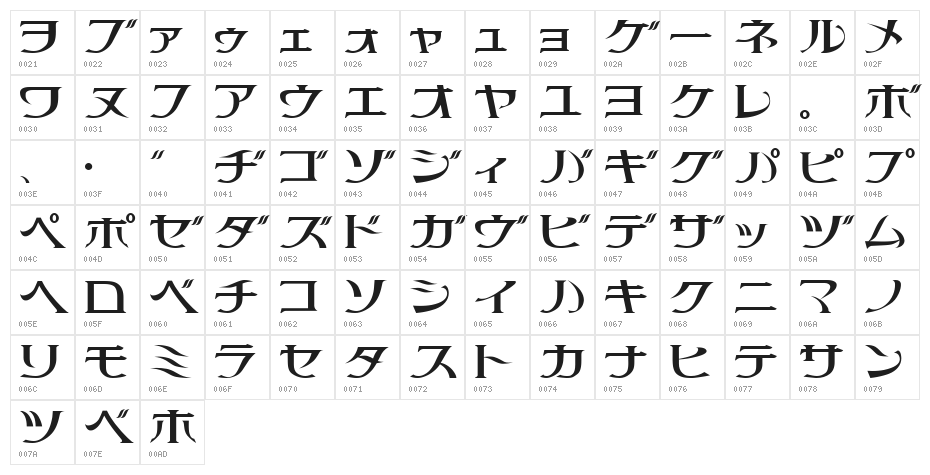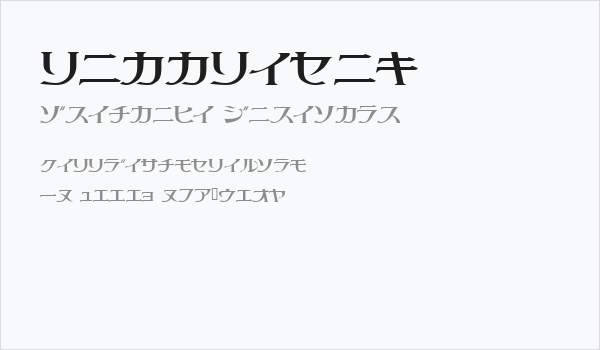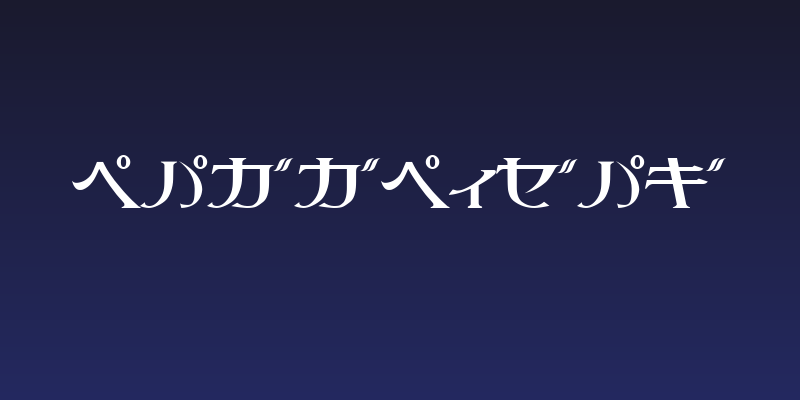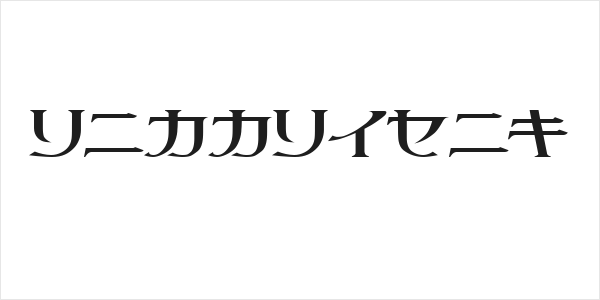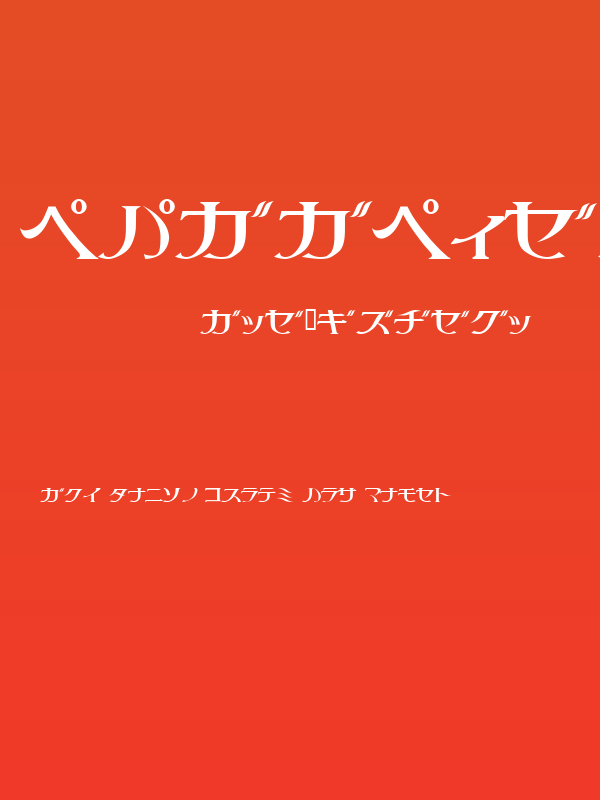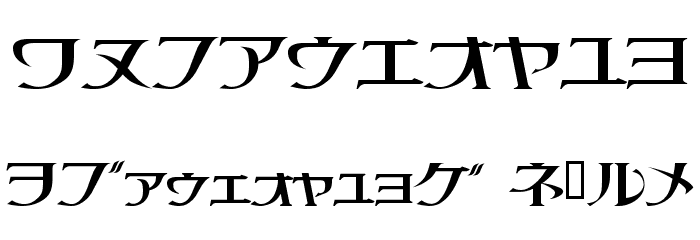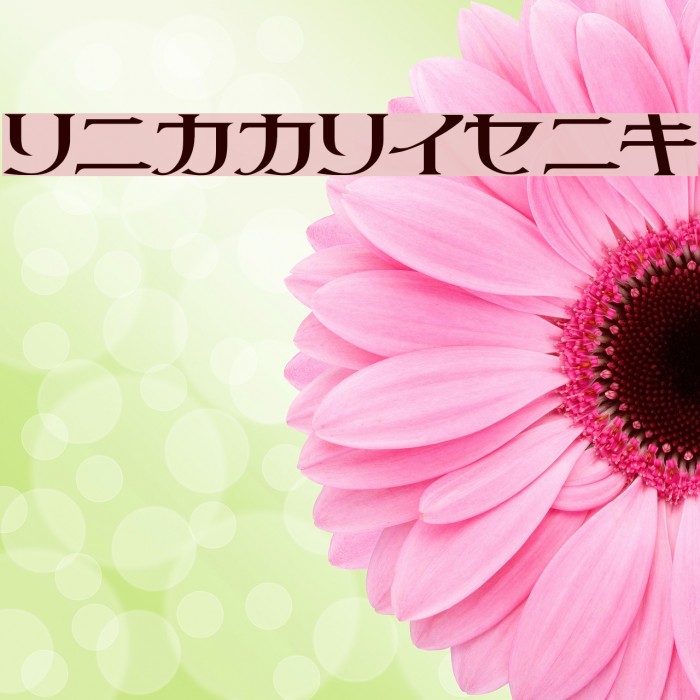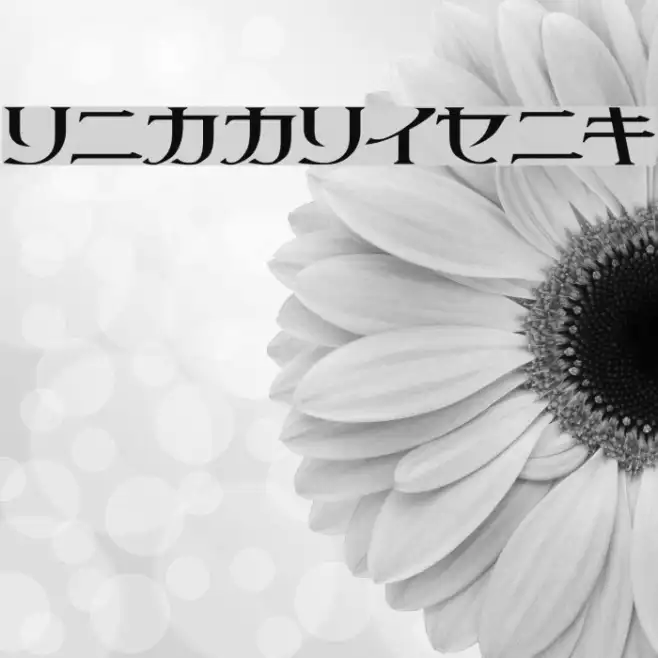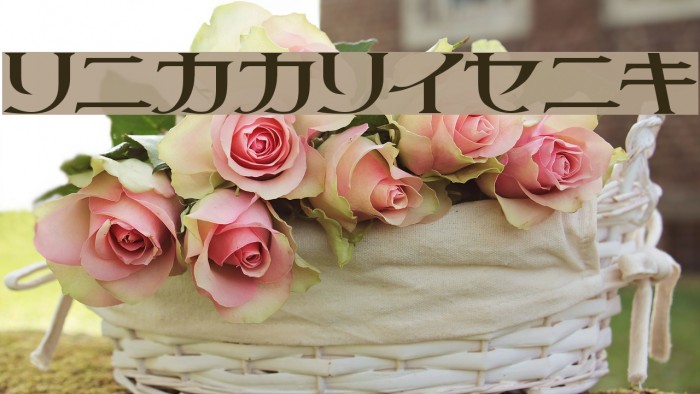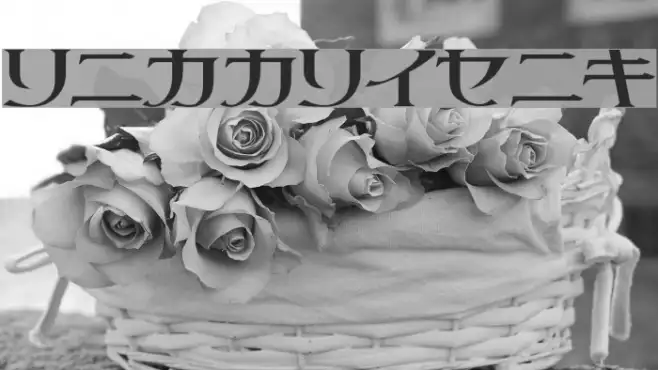
littlepig Font
littlepig Description
This font features a bold and dynamic style with sharp, angular strokes and a high contrast between thick and thin lines. The characters are designed with a distinct flair, incorporating traditional elements with a modern twist. The overall appearance is striking and eye-catching, making it suitable for impactful visual statements. The characters are well-defined, with a balance between elegance and strength, providing a unique aesthetic that stands out.